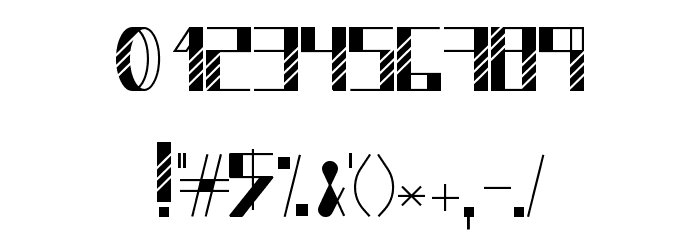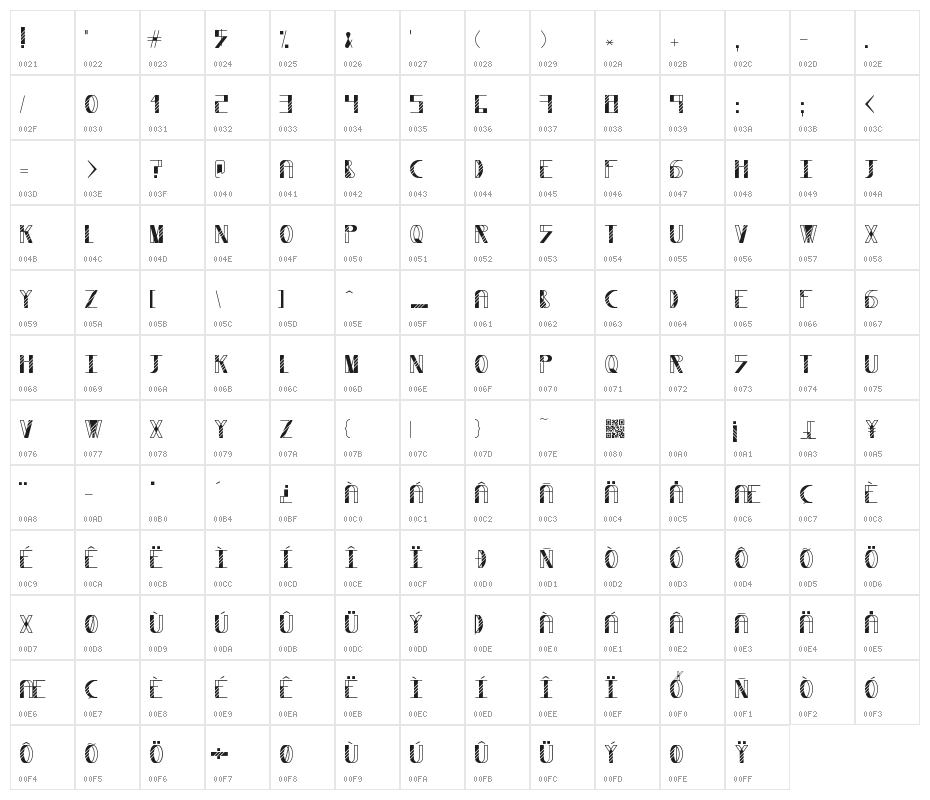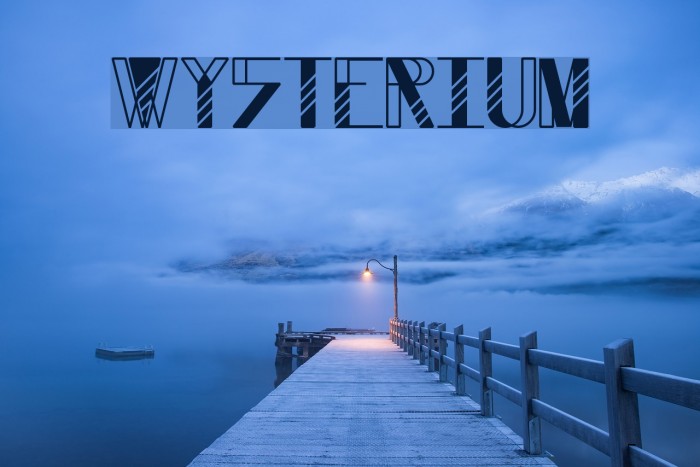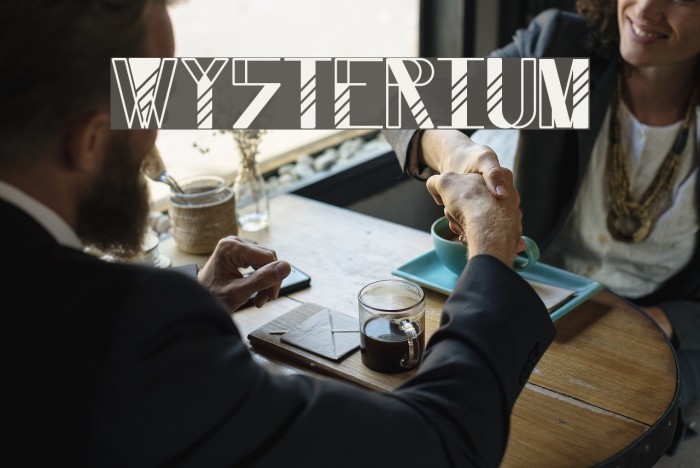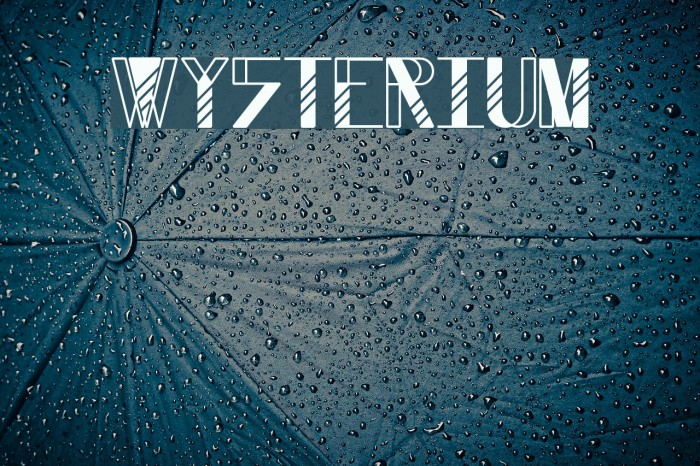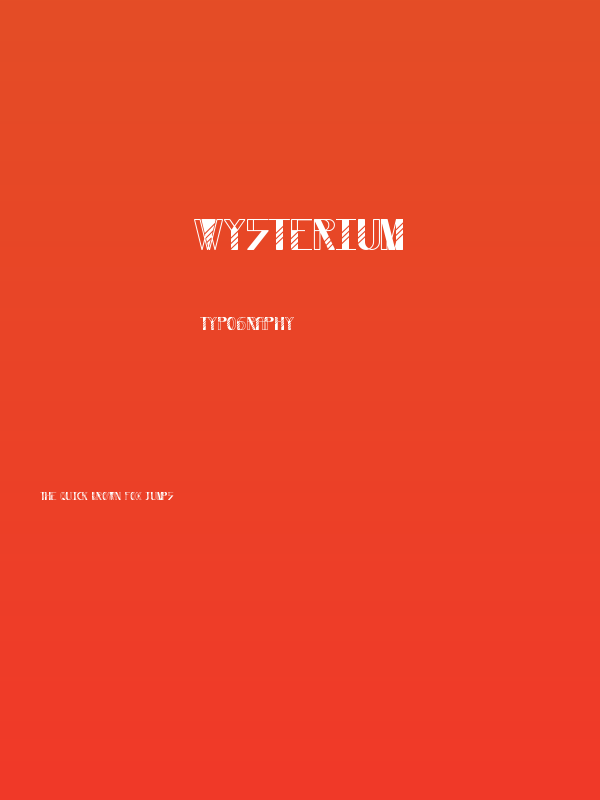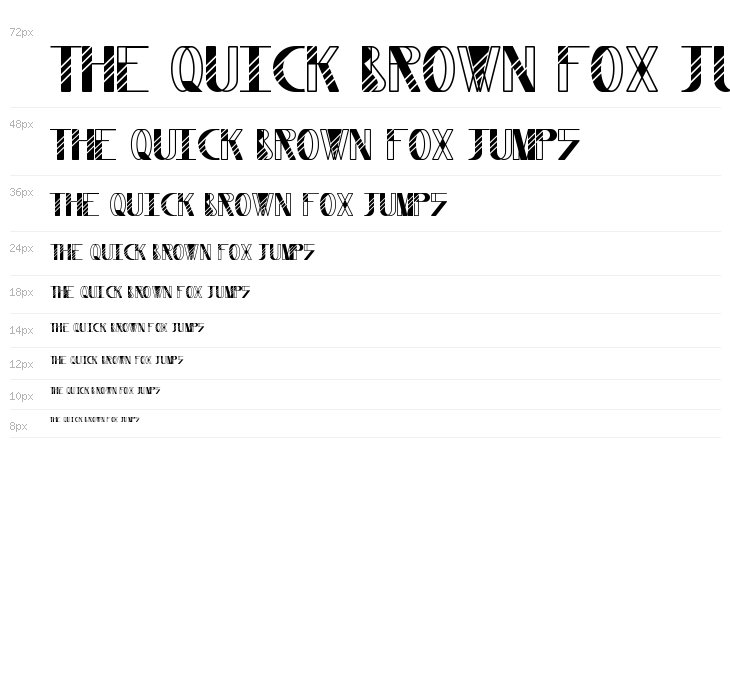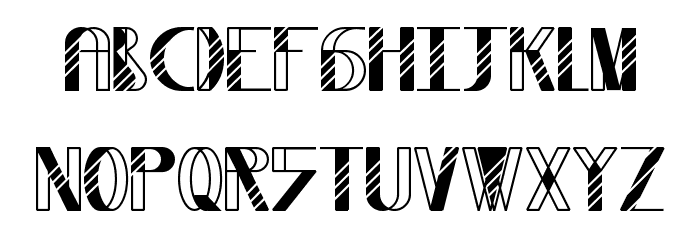
Wysterium Font
Wysterium Description
This font features a bold and striking design with a unique geometric pattern. Each character is crafted with a combination of solid and striped sections, creating a dynamic and eye-catching appearance. The uppercase letters are particularly distinctive, with angular shapes and a modern flair. The numbers and special characters maintain the same stylistic elements, ensuring consistency across all glyphs. This font's boldness and intricate design make it ideal for projects that require a strong visual impact.
| Proposed Projects | Ideal for branding, posters, album covers, and any design needing a bold, modern statement. |